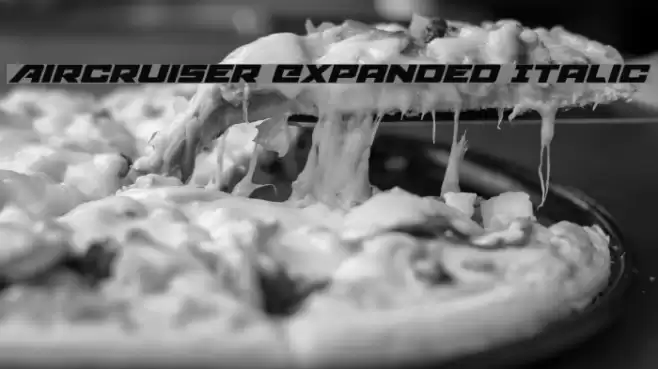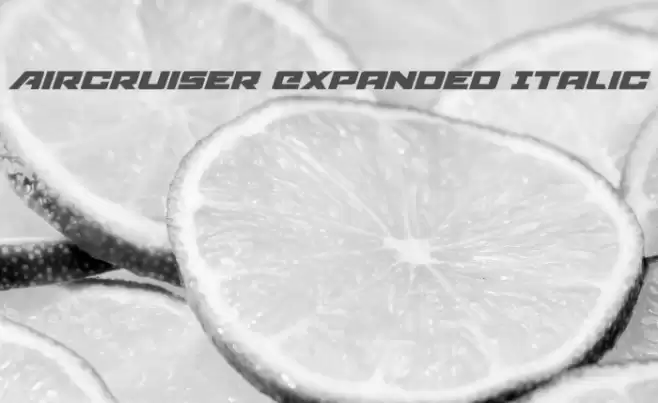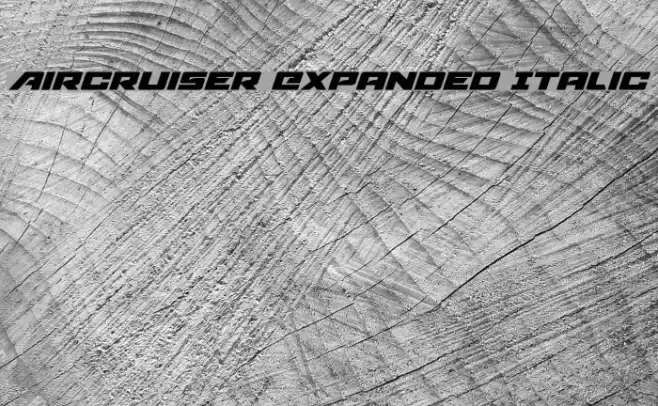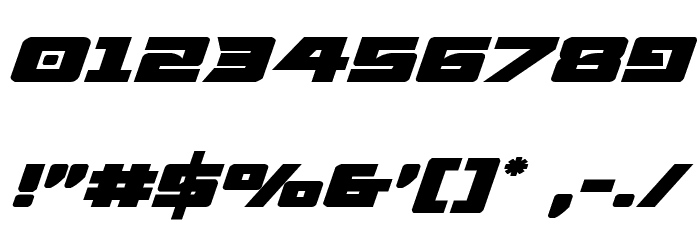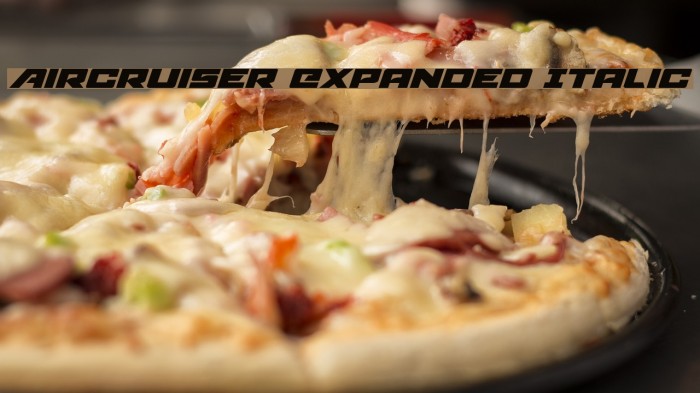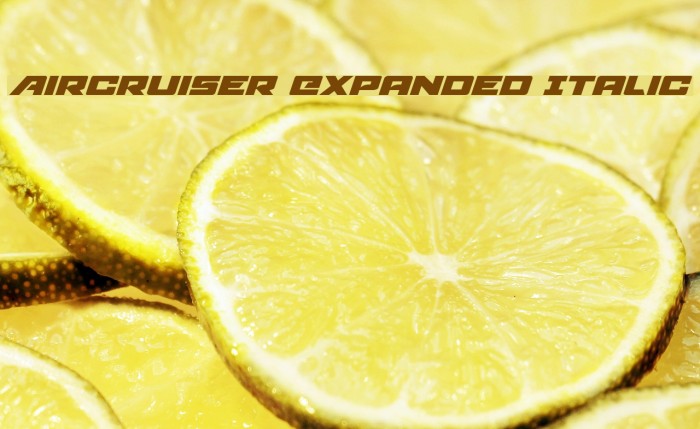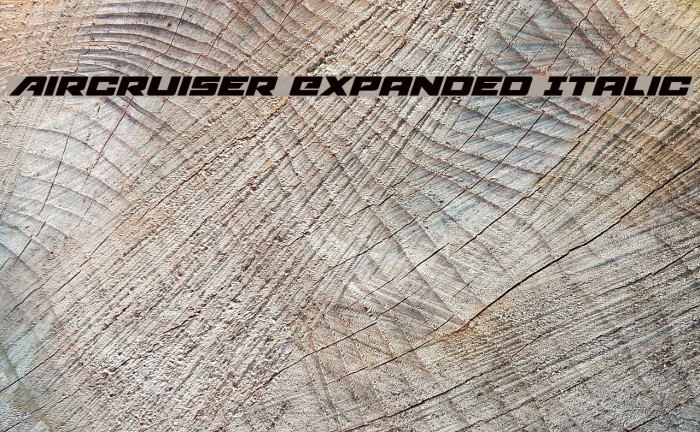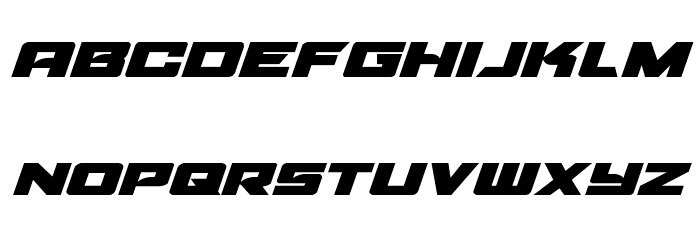
Aircruiser Expanded Italic Font
Aircruiser Expanded Italic Description
This font features a bold and dynamic style with a distinctly italicized slant, giving it a sense of motion and speed. The characters are expanded, providing a wide stance that enhances readability while maintaining a strong visual impact. The design is modern and sleek, with sharp angles and clean lines that convey a futuristic aesthetic. The uppercase and lowercase letters are consistent in style, and the numerals are equally bold, ensuring uniformity across all characters. Special characters are included, matching the overall theme with their angular and robust design.
A bold, expanded, and italicized font with a modern, dynamic style from Uncategorized fonts.
- Proposed Projects: Ideal for projects that require a futuristic or high-energy feel, such as automotive branding, sports team logos, or tech-related advertisements.